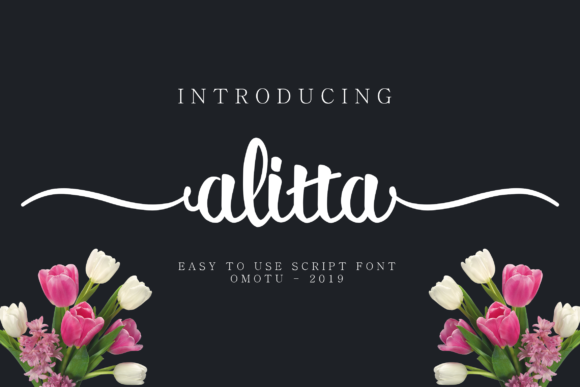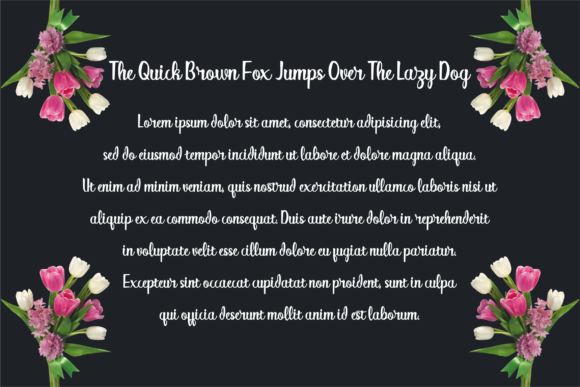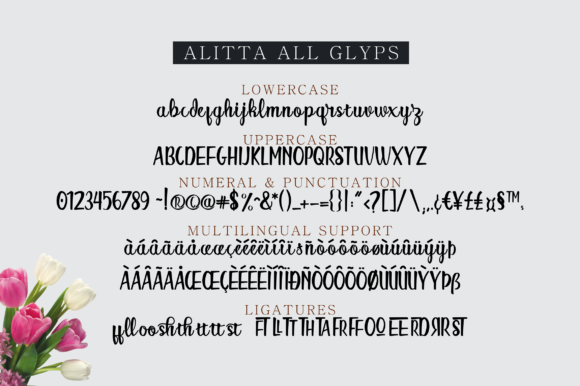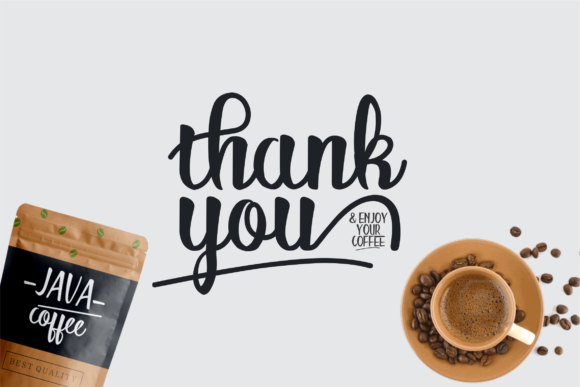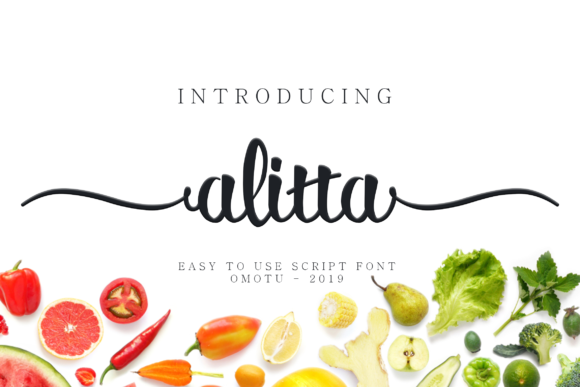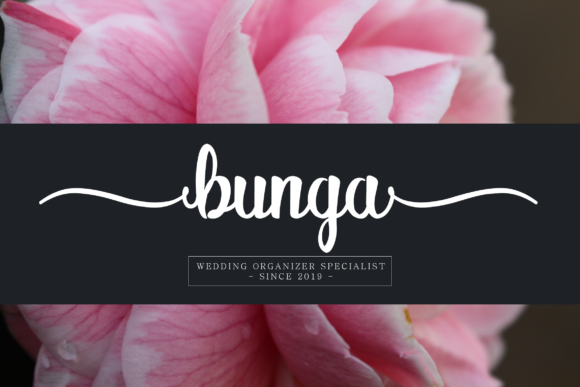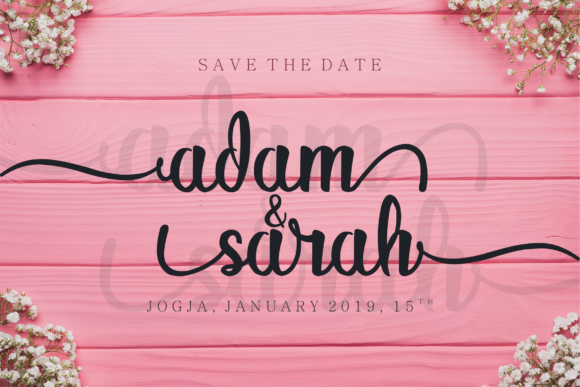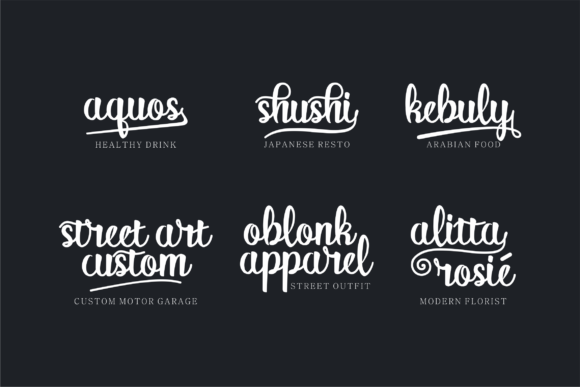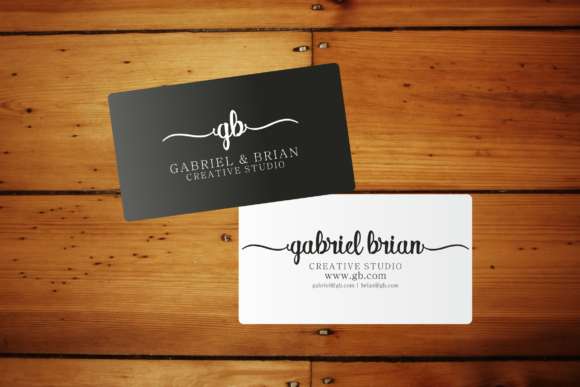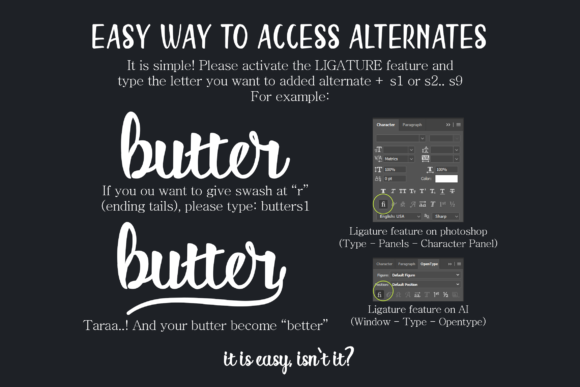
Alitta Font
About Alitta Font
The Alitta is a casual script font with an elegant taste. It’s perfect for photography, watermarks, social media posts, advertisements, logos & branding, invitations, product designs, labels, and every other design which needs a handwritten feel.